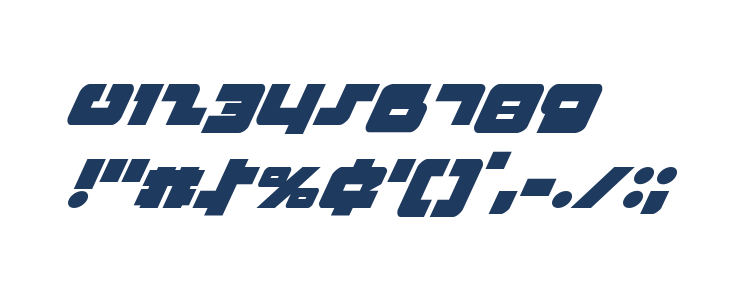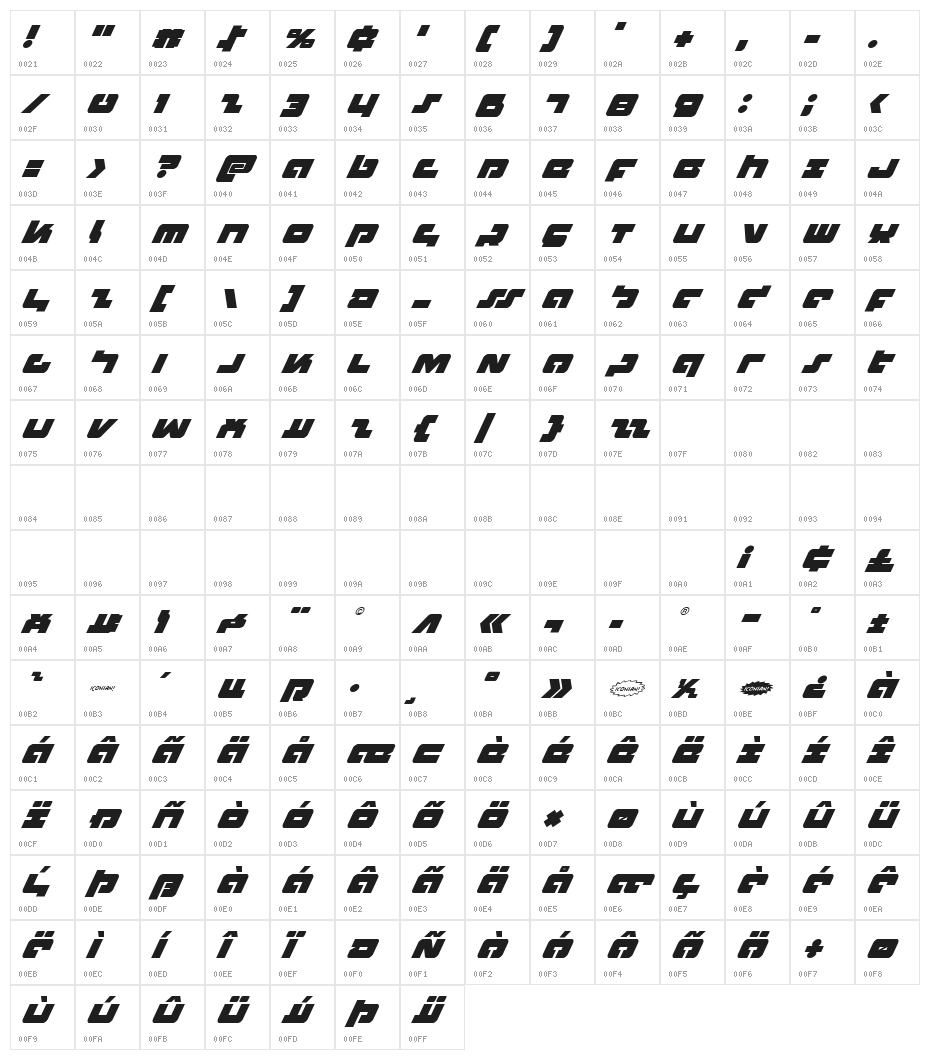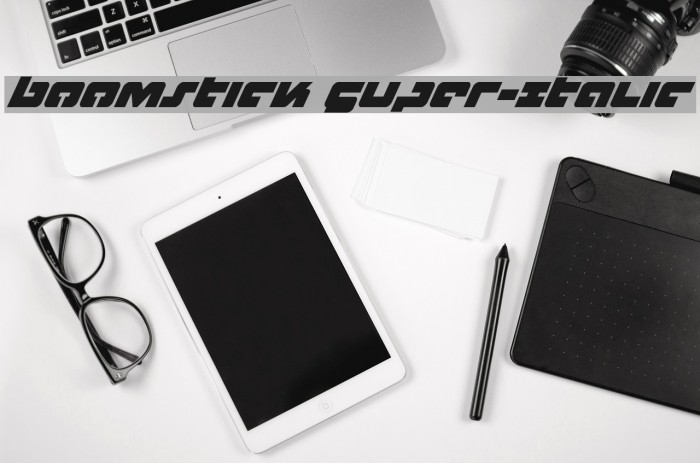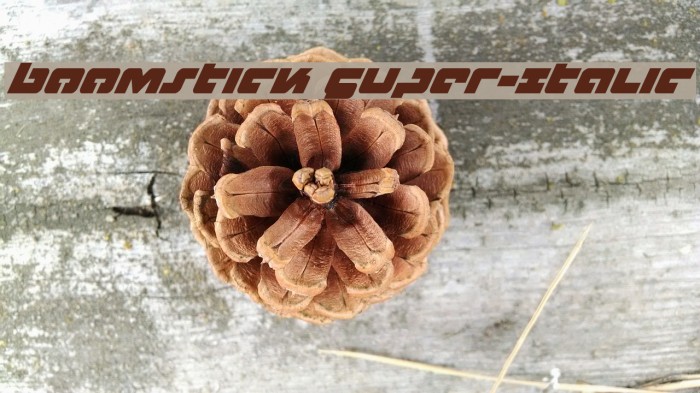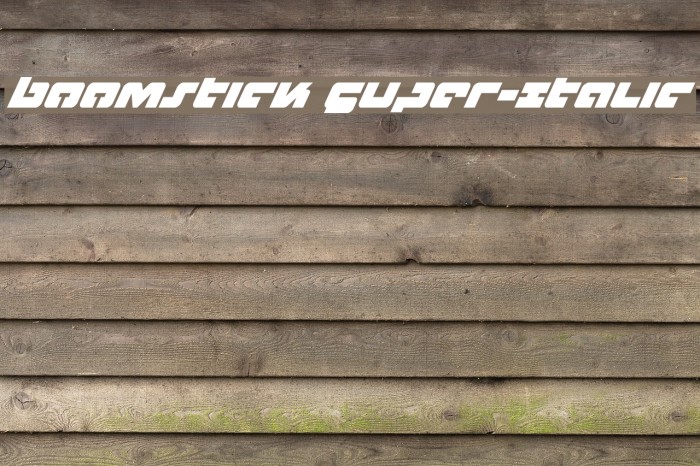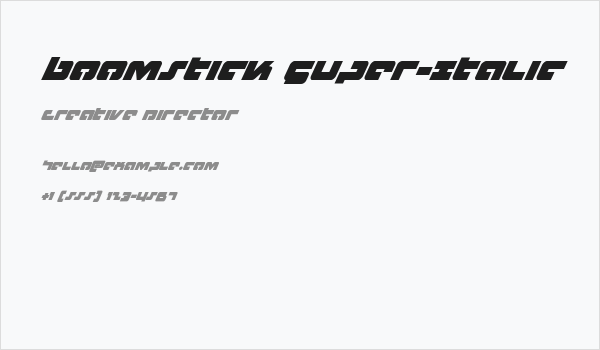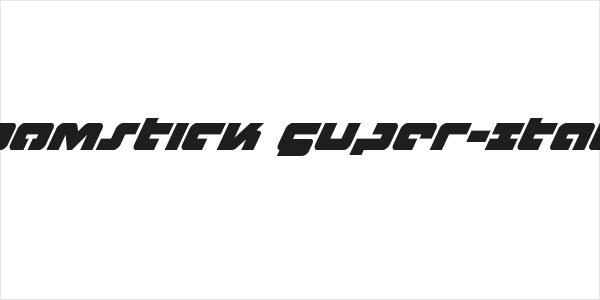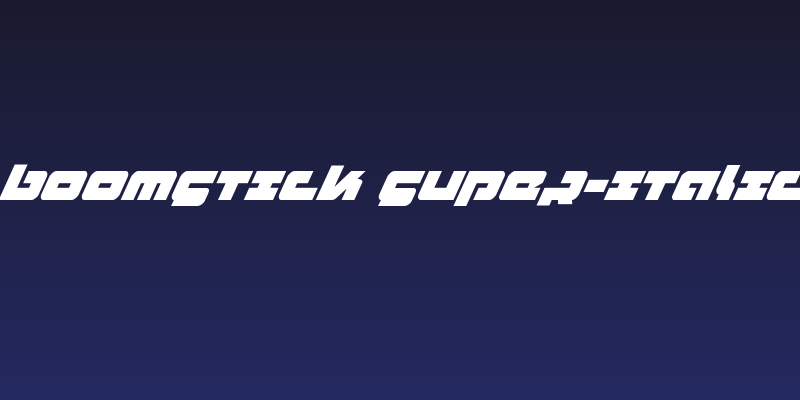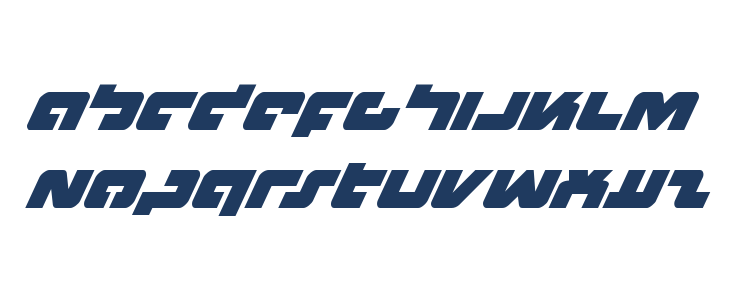
Boomstick Super-Italic Font
Boomstick Super-Italic Description
This font features a bold, italicized style with a futuristic and dynamic appearance. The characters are designed with sharp angles and a forward-leaning slant, giving a sense of motion and speed. The uppercase and lowercase letters maintain a consistent geometric structure, while the numerals and special characters complement the overall aesthetic. The font's heavy weight and distinct style make it stand out, ideal for projects that require a strong visual impact. Its unique design elements are perfect for modern and edgy applications.
| Proposed Projects | Ideal for branding, sports team logos, video game titles, and sci-fi themed designs. |